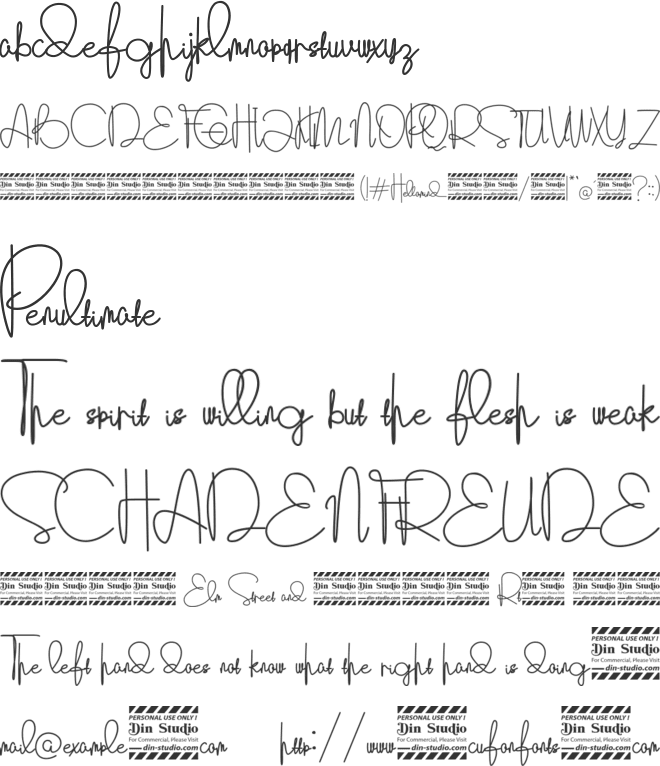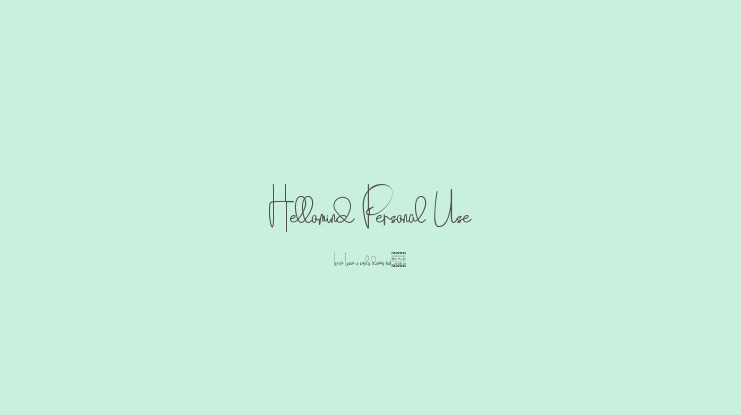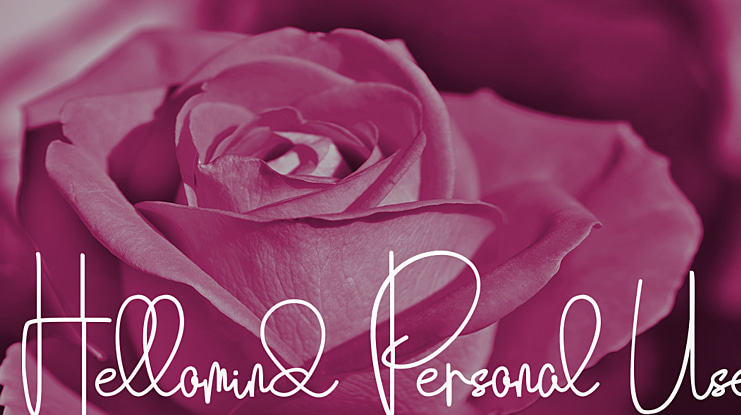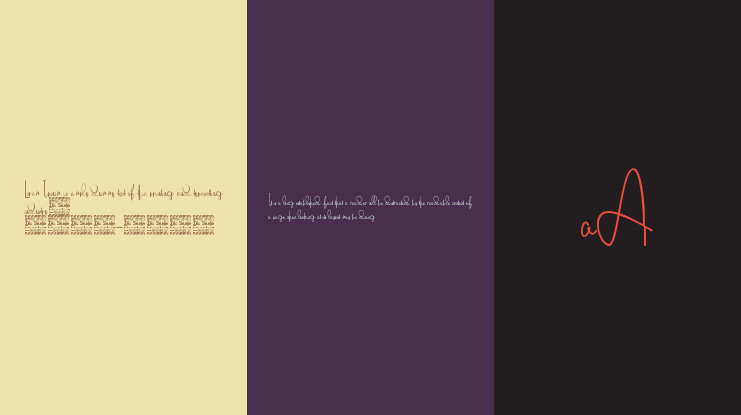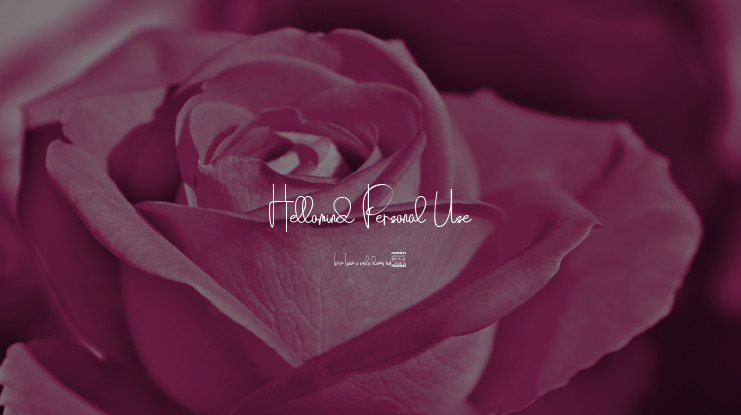
Hellomind is a beautiful signature font. It brings a modern and attractive typeface. Made for any professional project branding. It is the best for logos, branding, wedding and quotes.